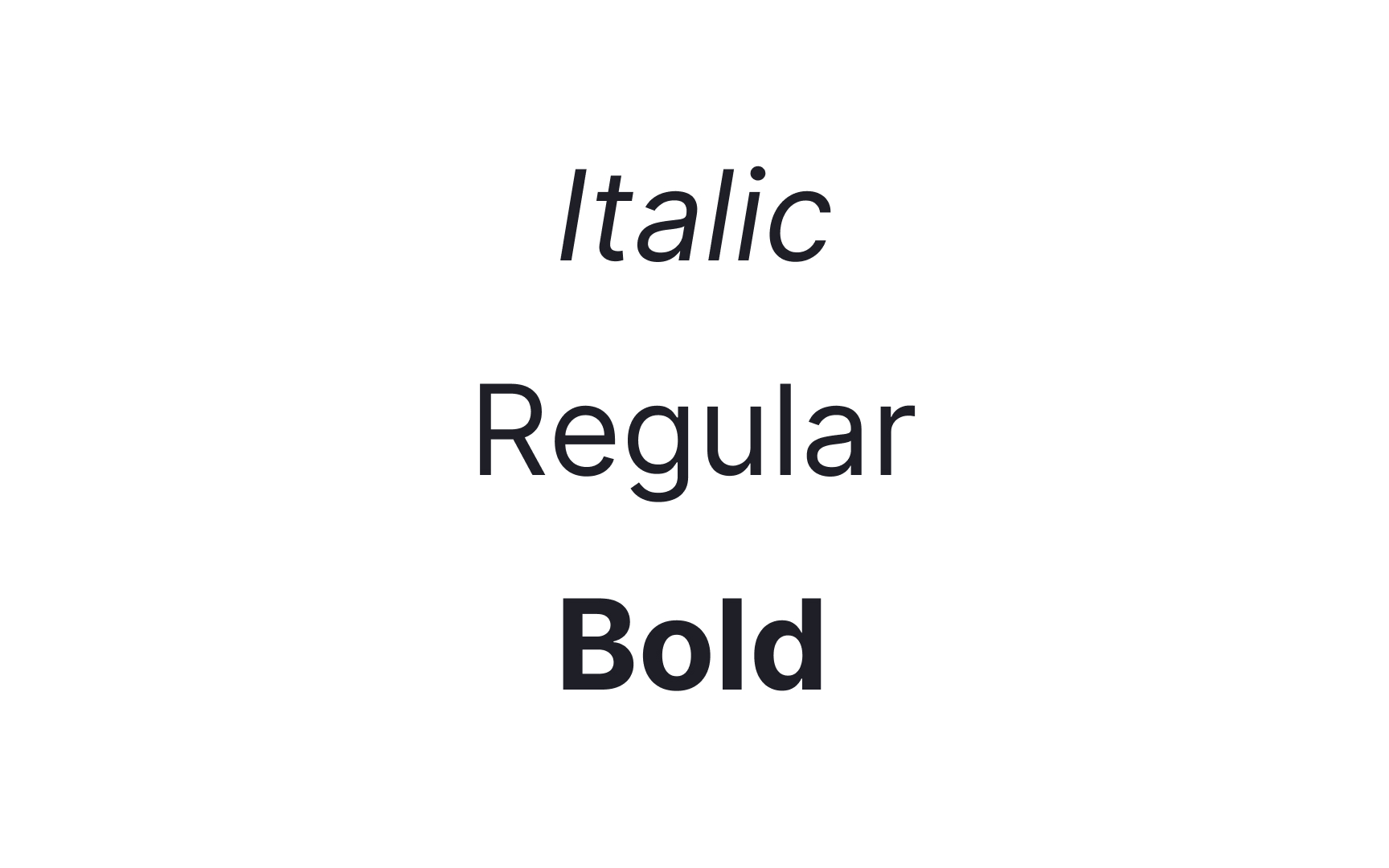
Font
A font is a specific implementation of a typeface, meaning it includes a particular style (like bold or italic), weight, and size.
For example, Helvetica Bold 12pt is a font (a specific style, size, and weight of the Helvetica typeface).
Early fonts were individual sets of metal types that were handset to print pages. Since they were cast in metal, each size and weight necessitated a separate set of characters called sorts.